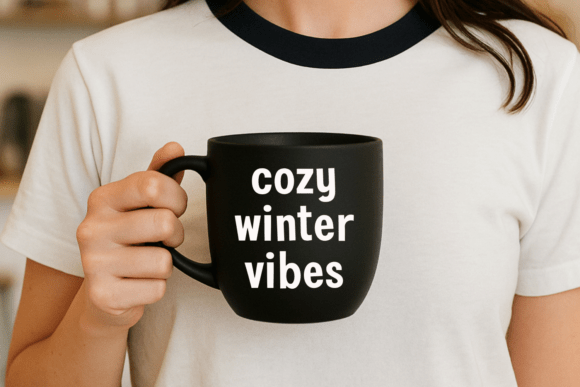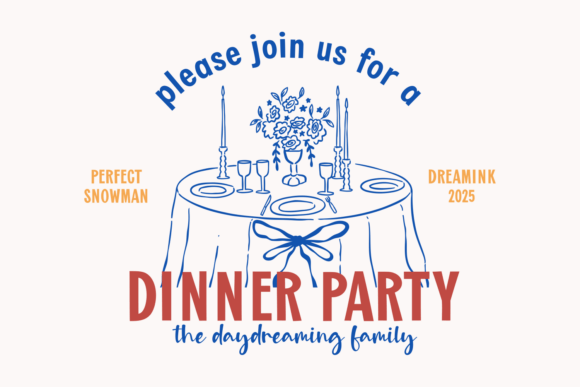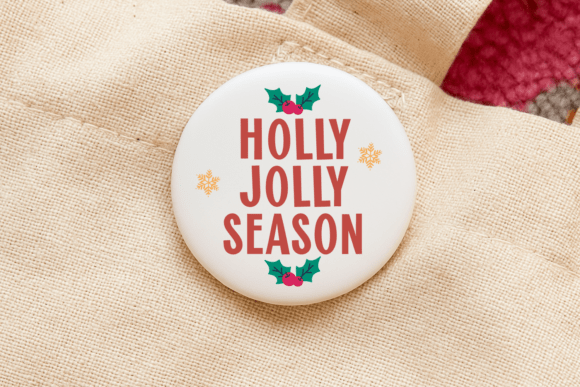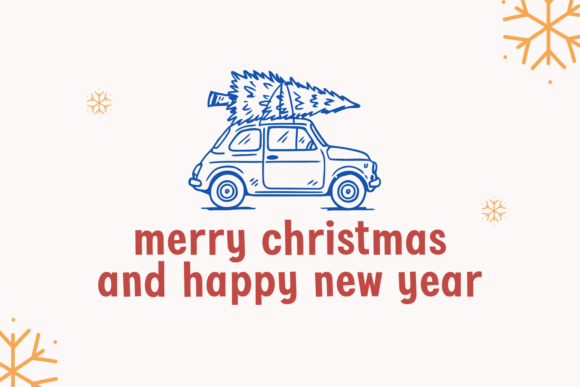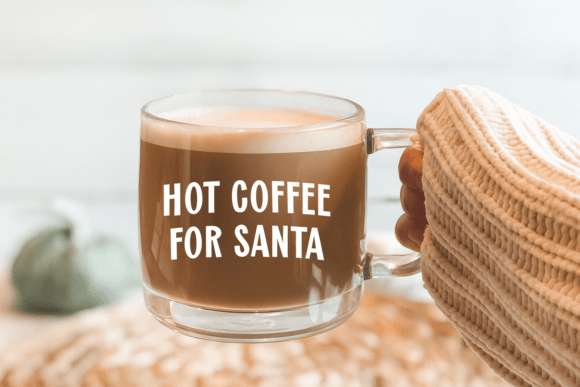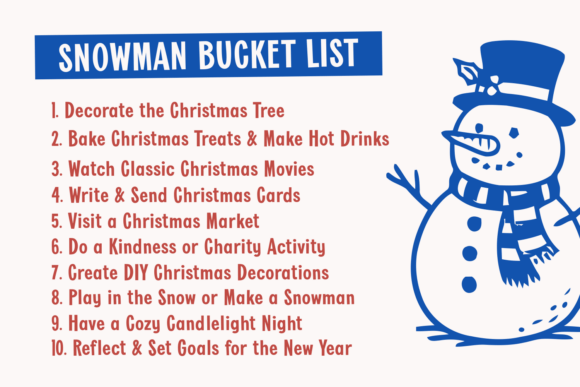
Introduction to Perfect Snowman Font
Bring the magic of winter to your designs with Perfect Snowman, a fun and cheerful Christmas font.
Its clean and bold letters make every project feel warm, festive, and full of joy Perfect for holiday cards, kids’ projects, Christmas crafts, posters, t-shirts, and invitations, this font adds a cozy winter touch to all your creative work.
Key Features of Perfect Snowman Font